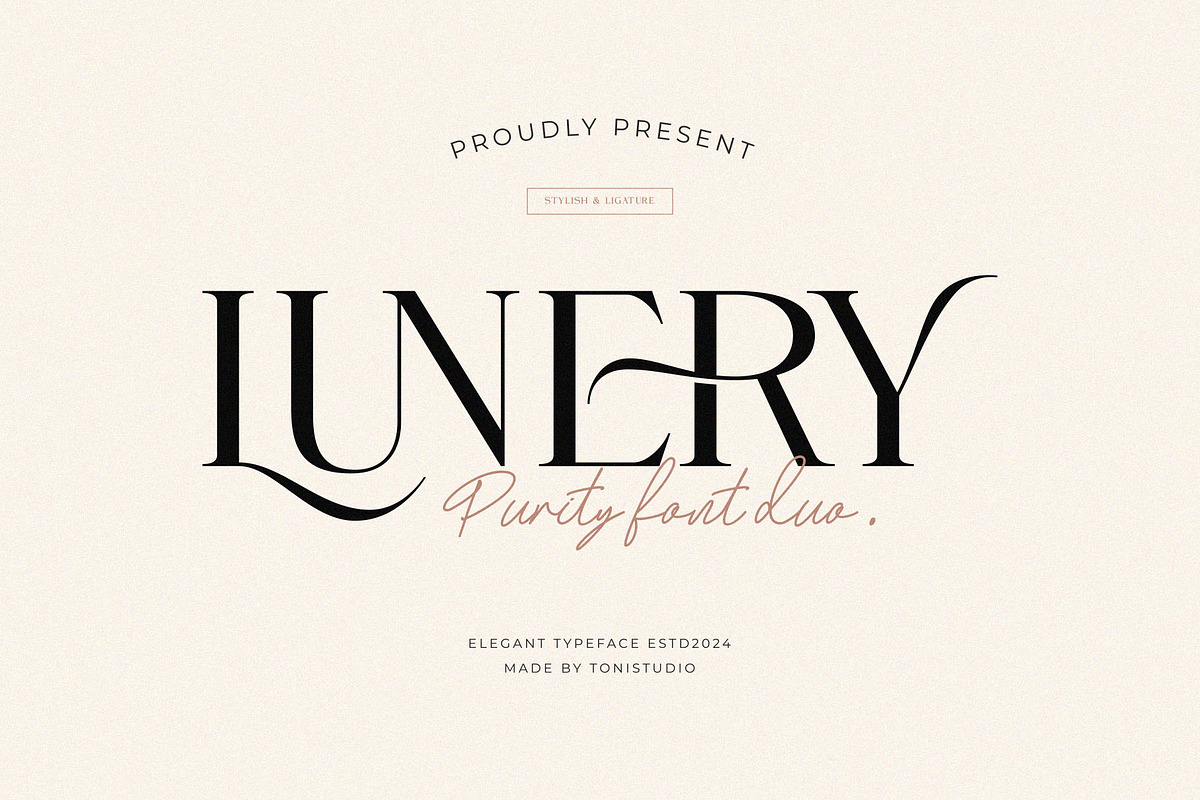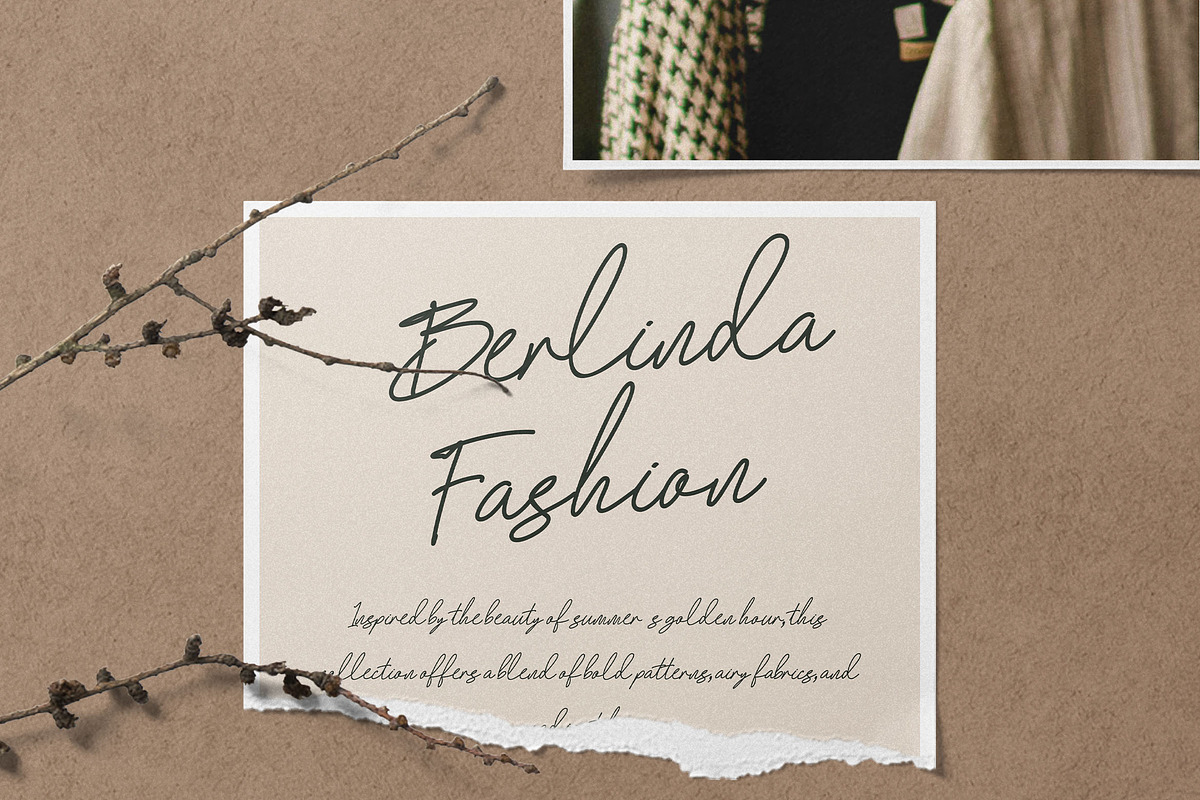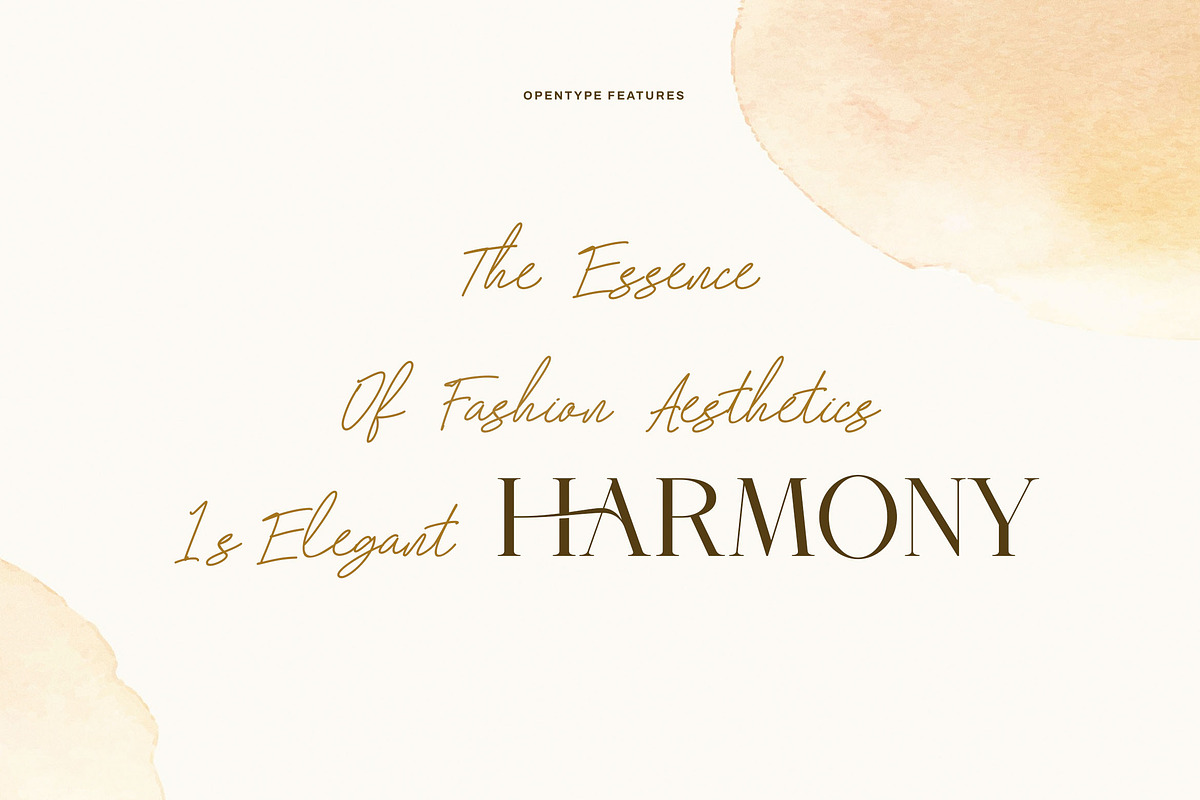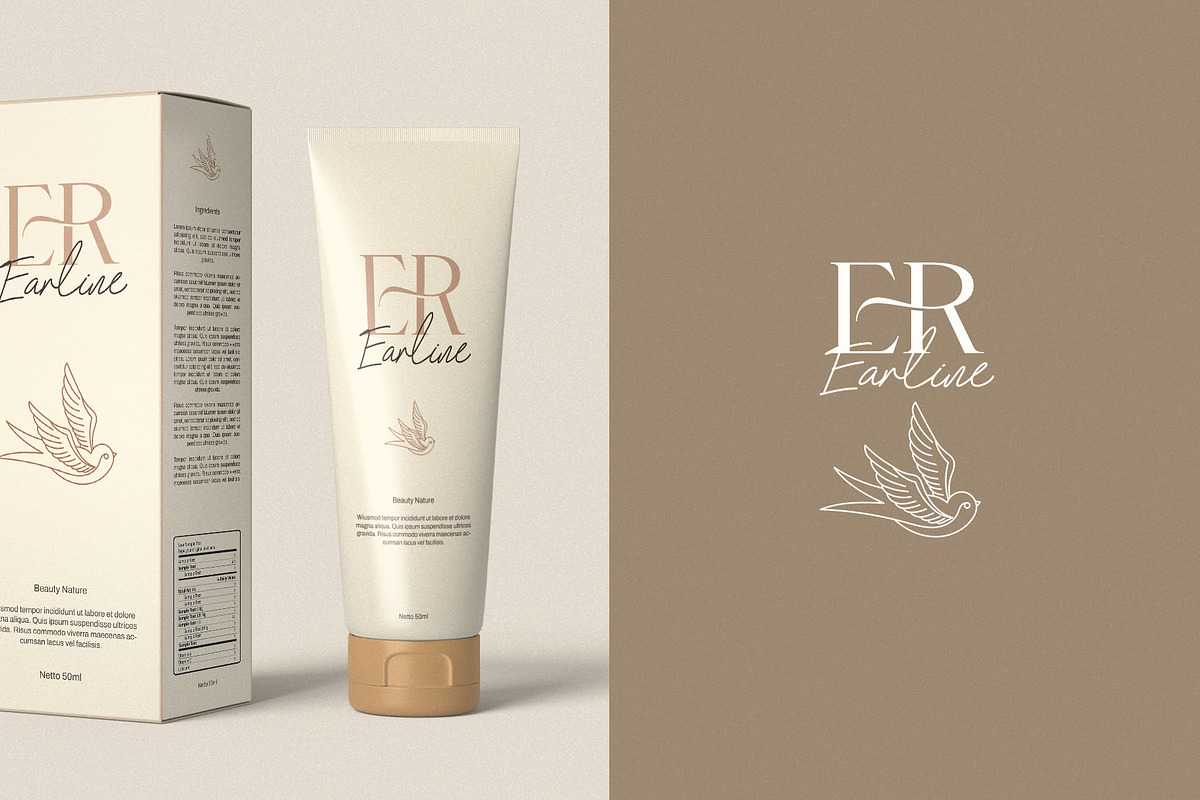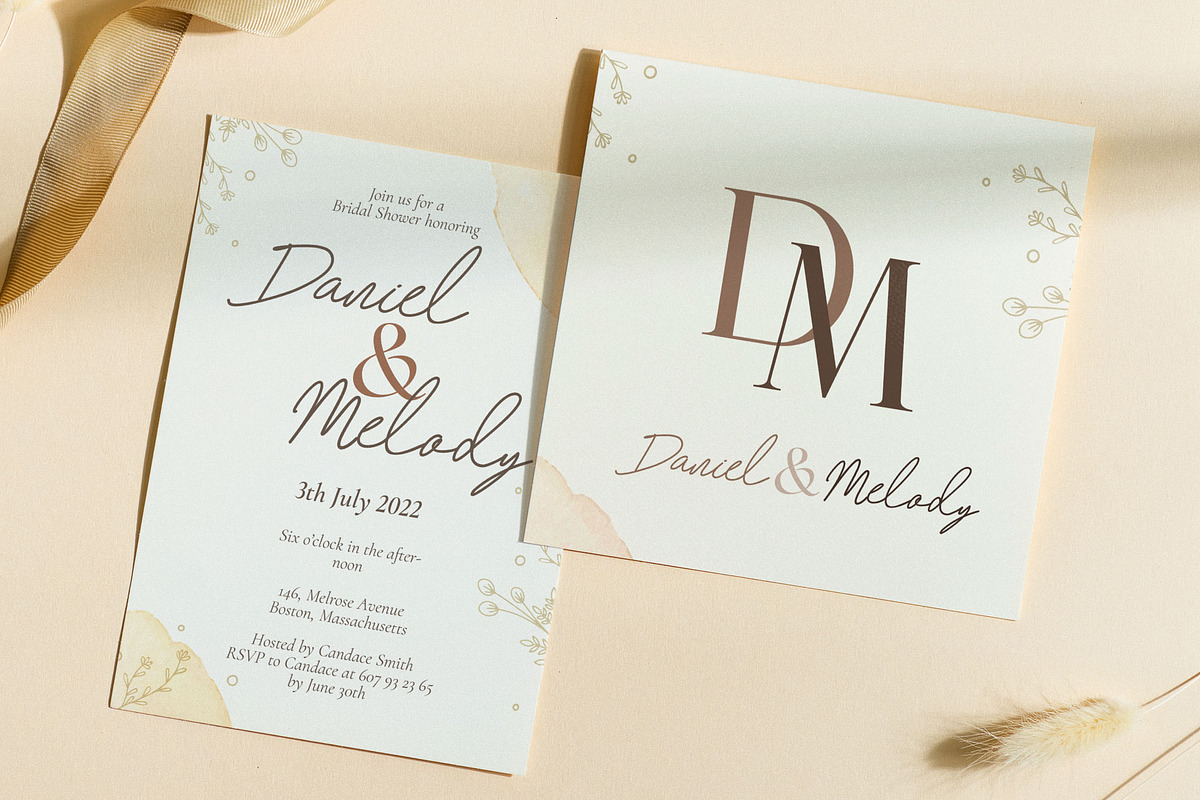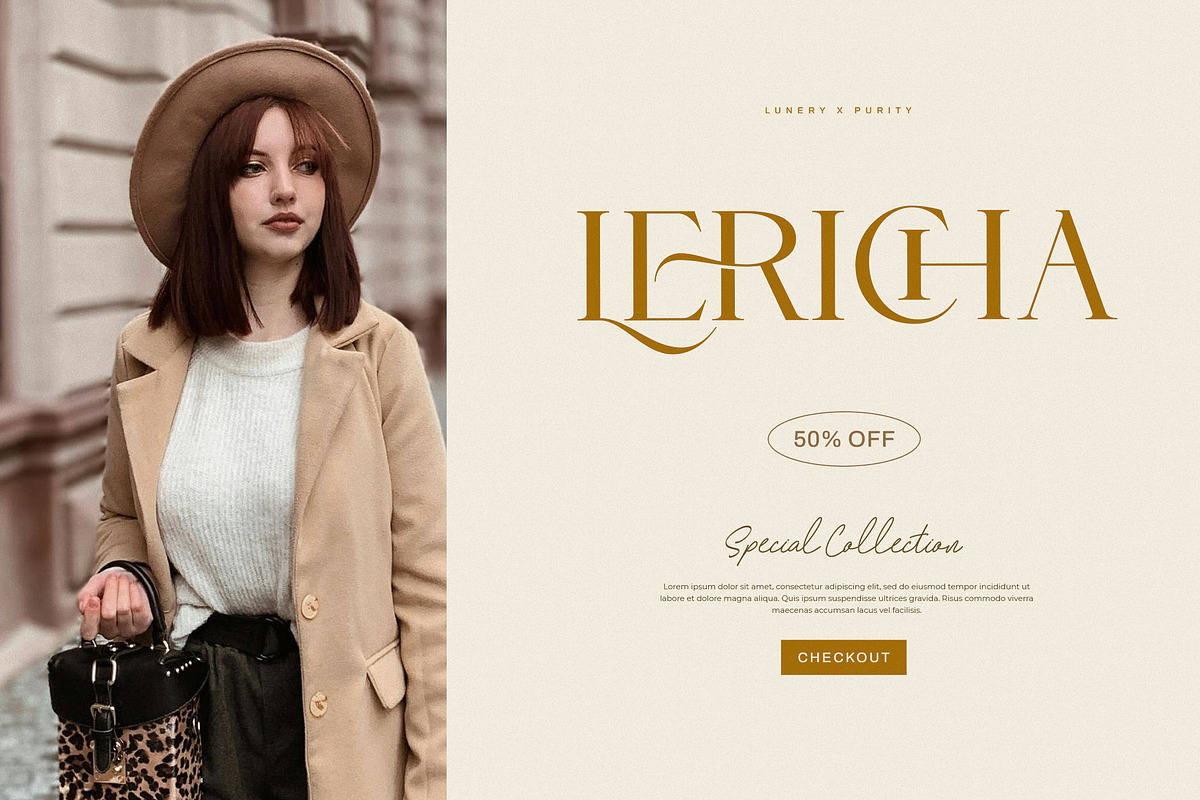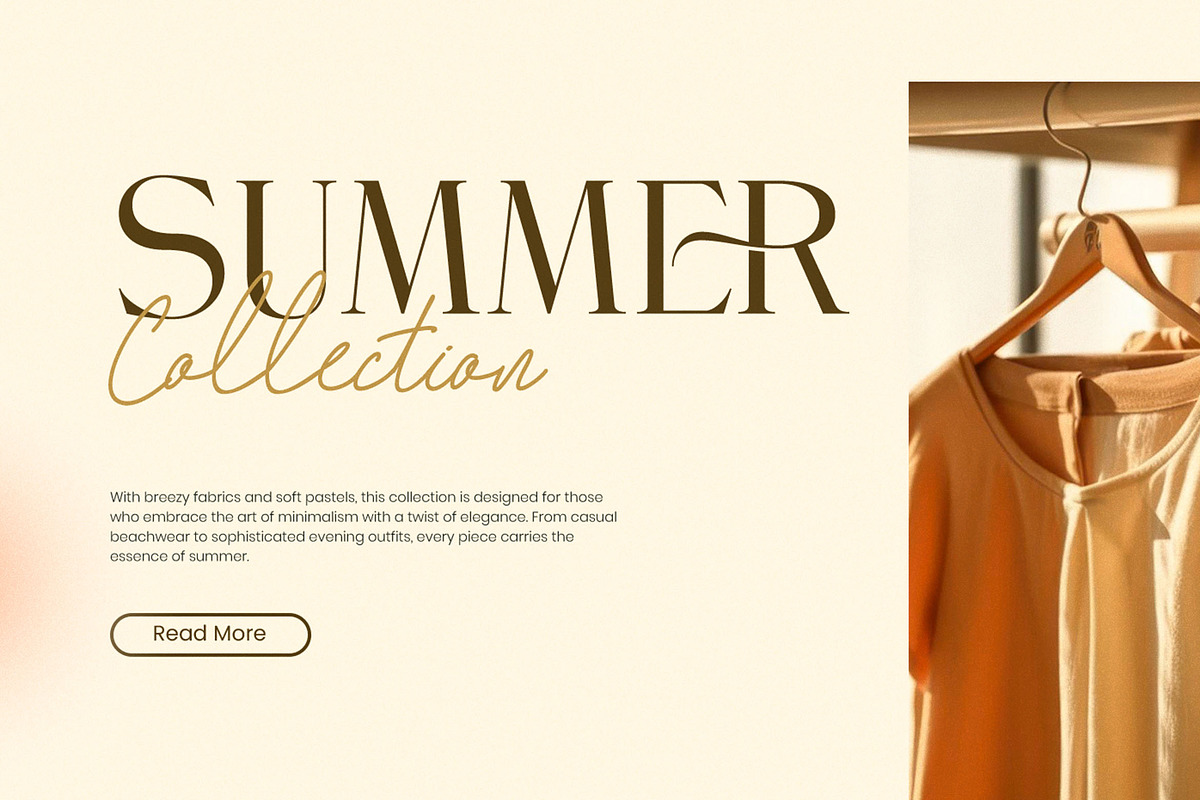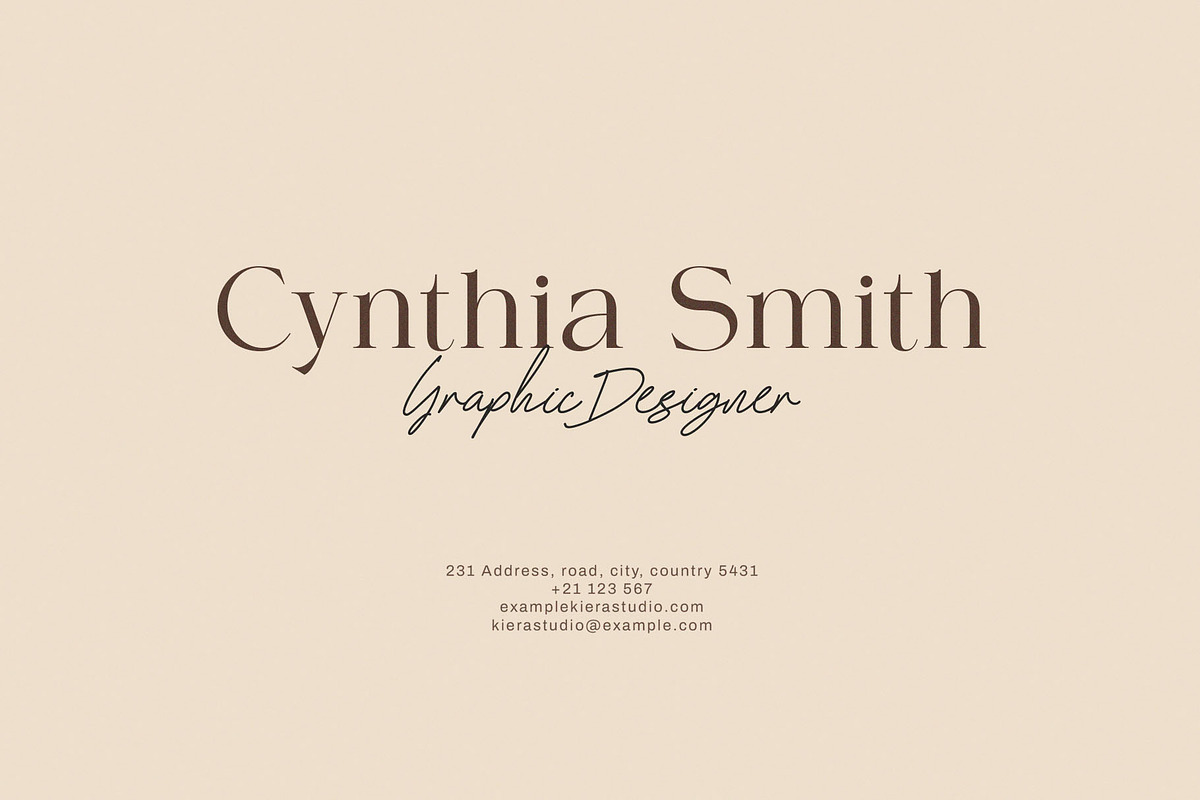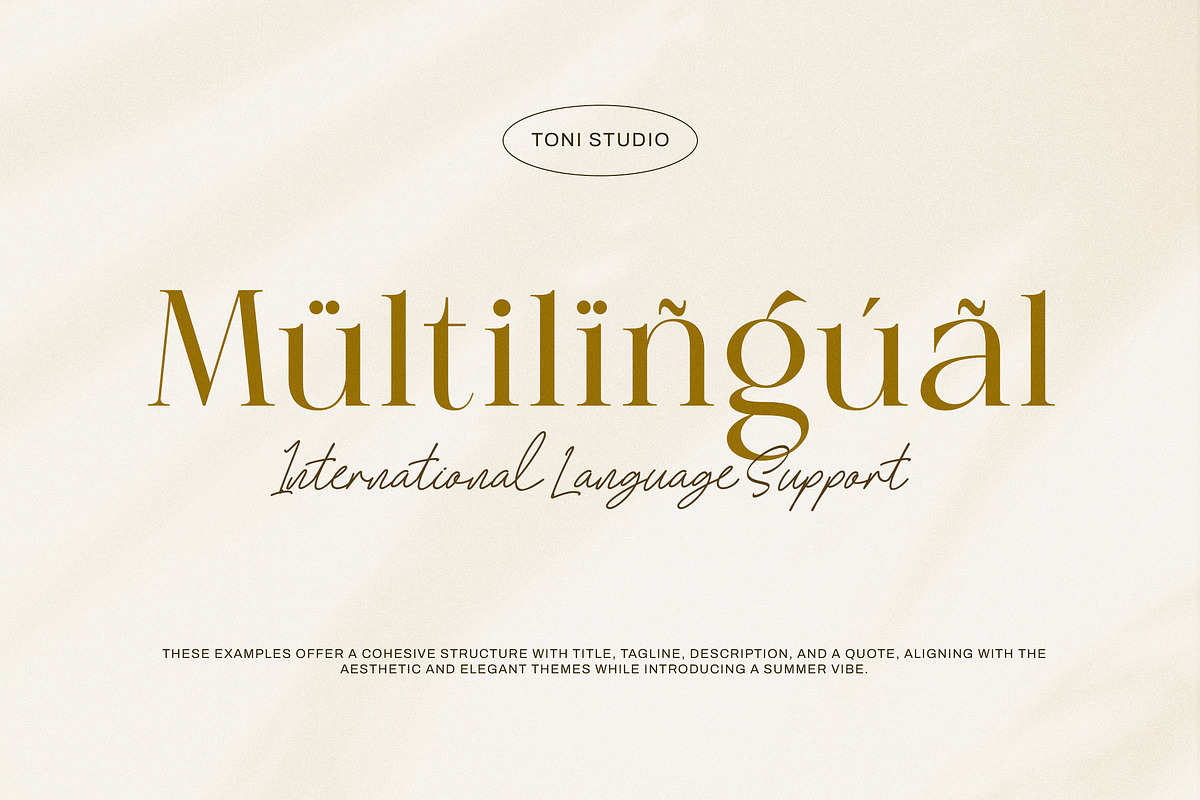
Lunery Purity || Modern Font Duo
Presenting the Lunery Purity Font includes various uppercase letters, numbers and punctuation. Modern style serif fonts include ligatures and alternate characters. Created for posters, web design, branding, illustrations, badges, and several other works. Lunery Purity also includes a signature script font that will enhance your extraordinary projects.